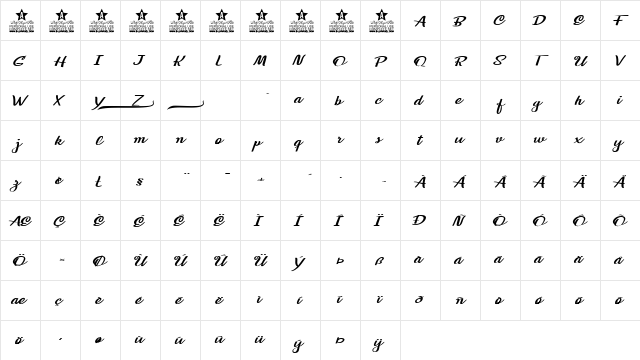
Soulstice Personal Use Regular
| Foundry | Billy Argel |
| Designer | Billy Argel |
Design Context for Soulstice Personal Use Typeface
Soulstice Personal Use is a composed and adaptable typeface that performs quietly and consistently across a wide range of design contexts.